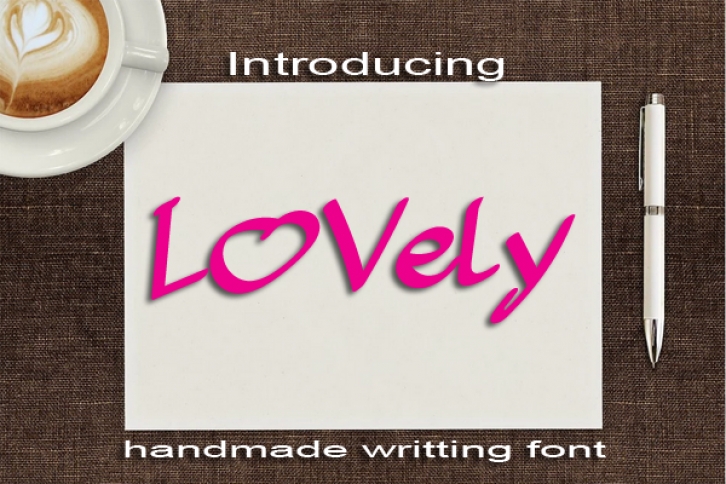
Lovely is a ravishing handwritten font. This versatile script font has a wide spectrum of applications ranging from greeting cards to headlines and is guaranteed to add a romantic feel to your next project.